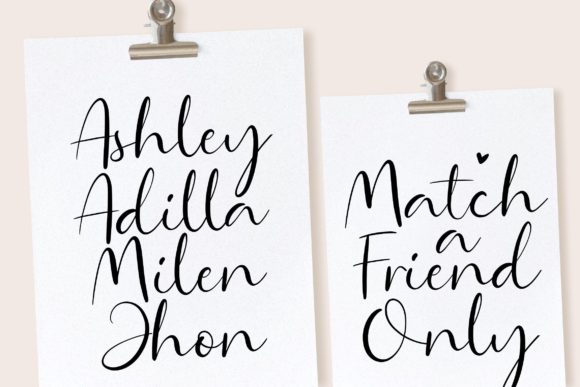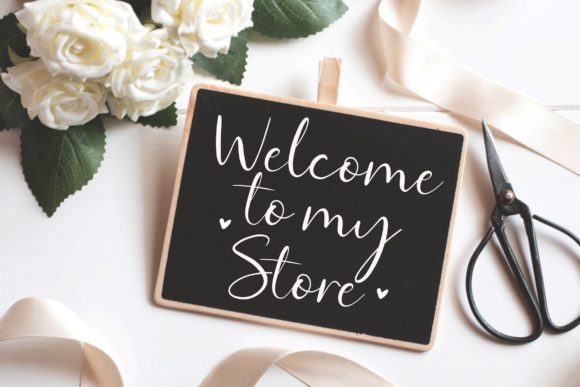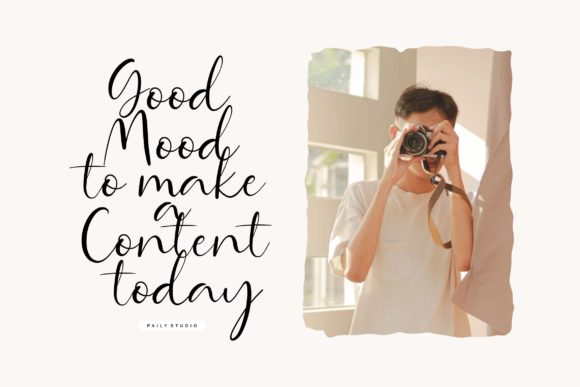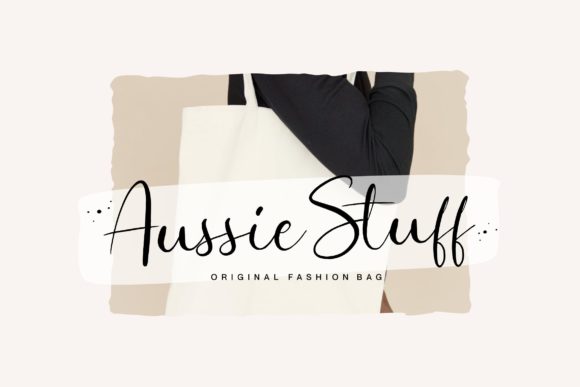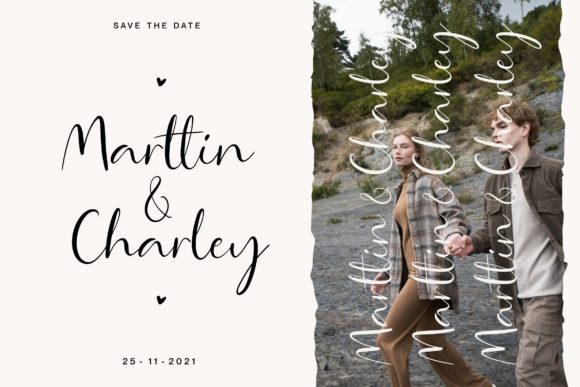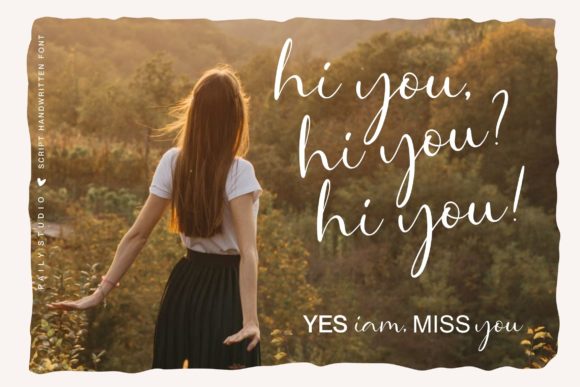
Amatley Script Font: Elevate Your Designs with Elegance and Flair
Are you looking for a font that can add a touch of sophistication and whimsy to your designs? Look no further than the Amatley Script Font. This beautiful, handwritten font is perfect for designers and crafters who want to create stunning visual content that stands out from the crowd.
What is Amatley Script Font?
Amatley Script is a delicate, elegant, and flowing handwritten font that is sure to capture the hearts of designers and crafters alike. Its beautiful and well-balanced characters make it an excellent choice for a wide range of design projects, from wedding invitations and branding materials to social media graphics and digital art.
Key Features of Amatley Script Font
- Delicate and Elegant: Amatley Script Font boasts a delicate and elegant appearance that is perfect for designs that require a touch of sophistication.
- Flowing Handwritten Style: The font’s flowing handwritten style gives it a personal and organic feel that is sure to connect with your audience.
- Well-Balanced Characters: The font’s characters are beautifully balanced, making it easy to read and understand.
- Versatile: Amatley Script Font is versatile and can be used for a wide range of design projects, from print to digital media.
Why Choose Amatley Script Font?
So, why should you choose Amatley Script Font for your design projects? Here are just a few reasons:
- Adds Elegance and Flair: Amatley Script Font adds a touch of elegance and flair to your designs, making them stand out from the crowd.
- Perfect for Creative Projects: The font is perfect for creative projects, such as wedding invitations, branding materials, and social media graphics.
- Easy to Read: The font’s well-balanced characters make it easy to read and understand, even at small sizes.
- Customizable: Amatley Script Font can be customized to fit your design needs, making it a great choice for designers who want to create unique and personalized content.
How to Use Amatley Script Font
Using Amatley Script Font is easy. Here are a few tips to get you started:
- Pair it with Other Fonts: Pair Amatley Script Font with other fonts to create a unique and visually appealing design.
- Use it for Headings and Titles: Use Amatley Script Font for headings and titles to add a touch of elegance and flair to your designs.
- Experiment with Colors and Textures: Experiment with different colors and textures to add depth and interest to your designs.
Who Can Benefit from Amatley Script Font?
Amatley Script Font is perfect for a wide range of designers and crafters, including:
- Graphic Designers: Graphic designers can use Amatley Script Font to create stunning visual content for their clients.
- Wedding Planners: Wedding planners can use Amatley Script Font to create beautiful wedding invitations and other stationery.
- Social Media Managers: Social media managers can use Amatley Script Font to create engaging and visually appealing social media graphics.
- Digital Artists: Digital artists can use Amatley Script Font to add a touch of elegance and whimsy to their digital art.
| Font Name | Amatley Script Font |
In conclusion, Amatley Script Font is a beautiful and elegant handwritten font that is perfect for designers and crafters who want to add a touch of sophistication and whimsy to their designs. Its delicate and flowing style, well-balanced characters, and versatility make it an excellent choice for a wide range of design projects. Whether you’re a graphic designer, wedding planner, social media manager, or digital artist, Amatley Script Font is sure to elevate your designs and help you create stunning visual content that stands out from the crowd.